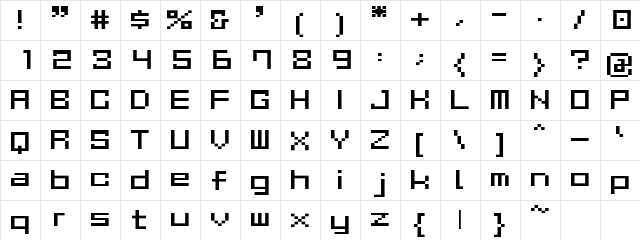
GAU_font_cube_R Regular
Design Context for GAU_font_cube_R Typeface
GAU_font_cube_R offers clean, dependable letterforms without strong stylistic allegiance, making it a practical choice for designers who need flexibility.